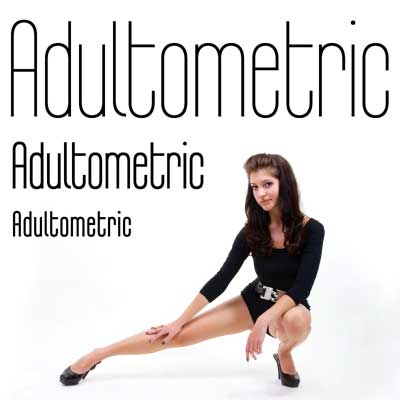
Adultometric Pro
Adultometric Pro by Roger S. Nelsson
This is the mature version of our previous release Infantometric Pro - The same basic skeleton, but with a more normal x-height. One feature is that no letters (except some accented letters - with cedillas, ogoneks and commaaccents) go below the baseline, so this is one condensed font that is perfect for headlines! :)
Adultometric Pro is a professionally reworked font that contains an extended character set for setting text in 65 languages requiring more than the basic A-Z!
Adultometric Pro Light
Adultometric Pro Light by Roger S. Nelsson
384 glyphs!
Adultometric Pro Regular
Adultometric Pro Regular by Roger S. Nelsson
384 glyphs!
Adultometric Pro Bold
Adultometric Pro Bold by Roger S. Nelsson
384 glyphs!